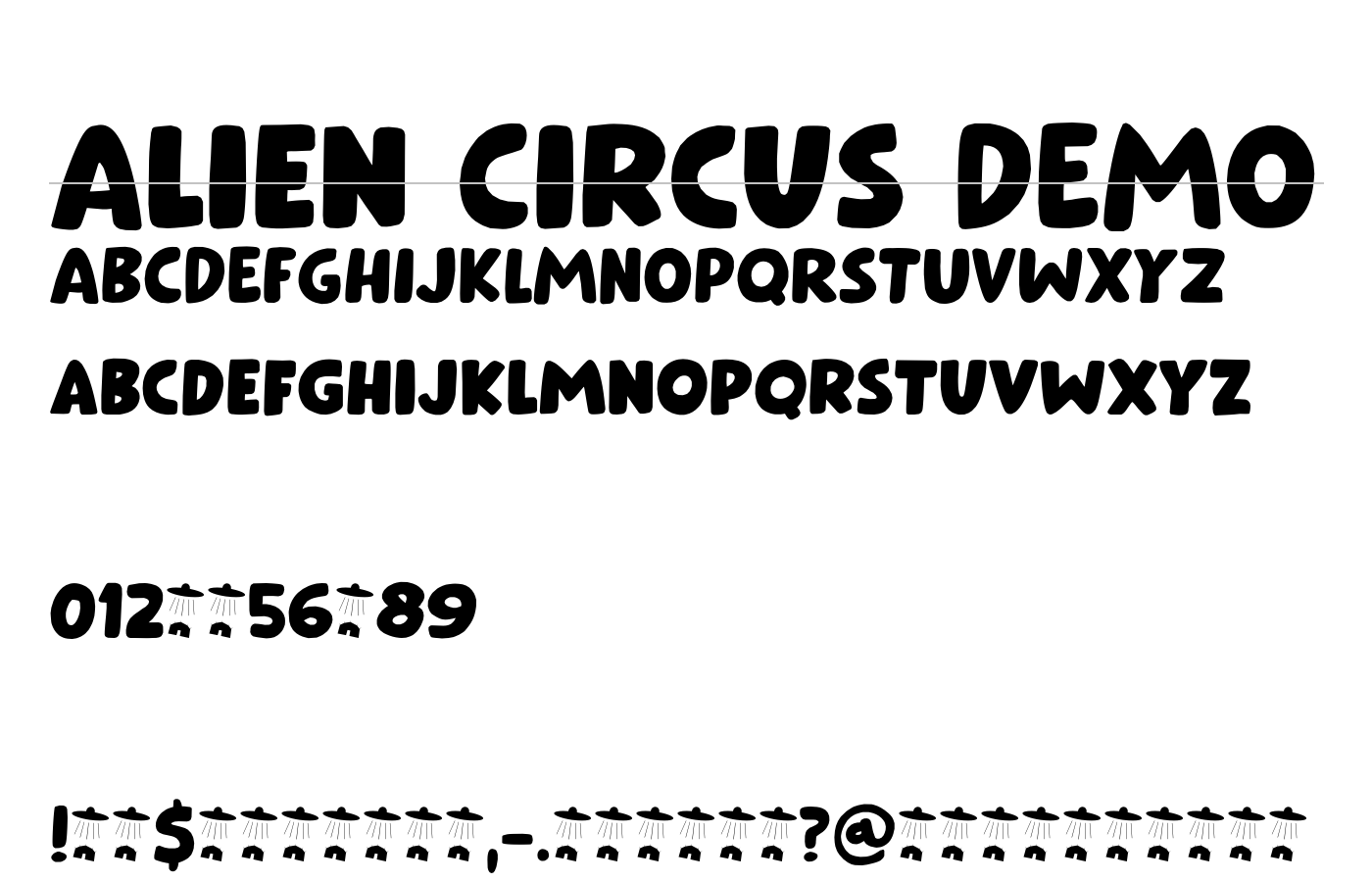
Alien Circus DEMO is a playful, bold sans serif font with a hand-drawn feel, featuring chunky, rounded letterforms with consistent stroke weight and a lively, slightly irregular texture. Its quirky, approachable style carries a fun, informal tone perfect for children's products, event posters, or creative branding where a sense of whimsy and energy is desired. This font works best in headlines and display uses where its strong personality can grab attention and create a memorable impression.
Alien Circus DEMO Font
About Alien Circus DEMO Font